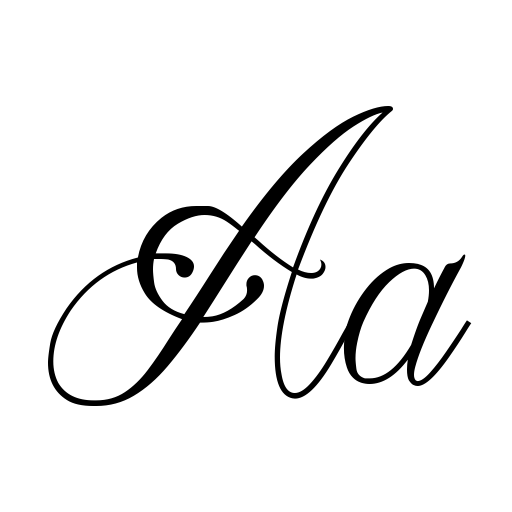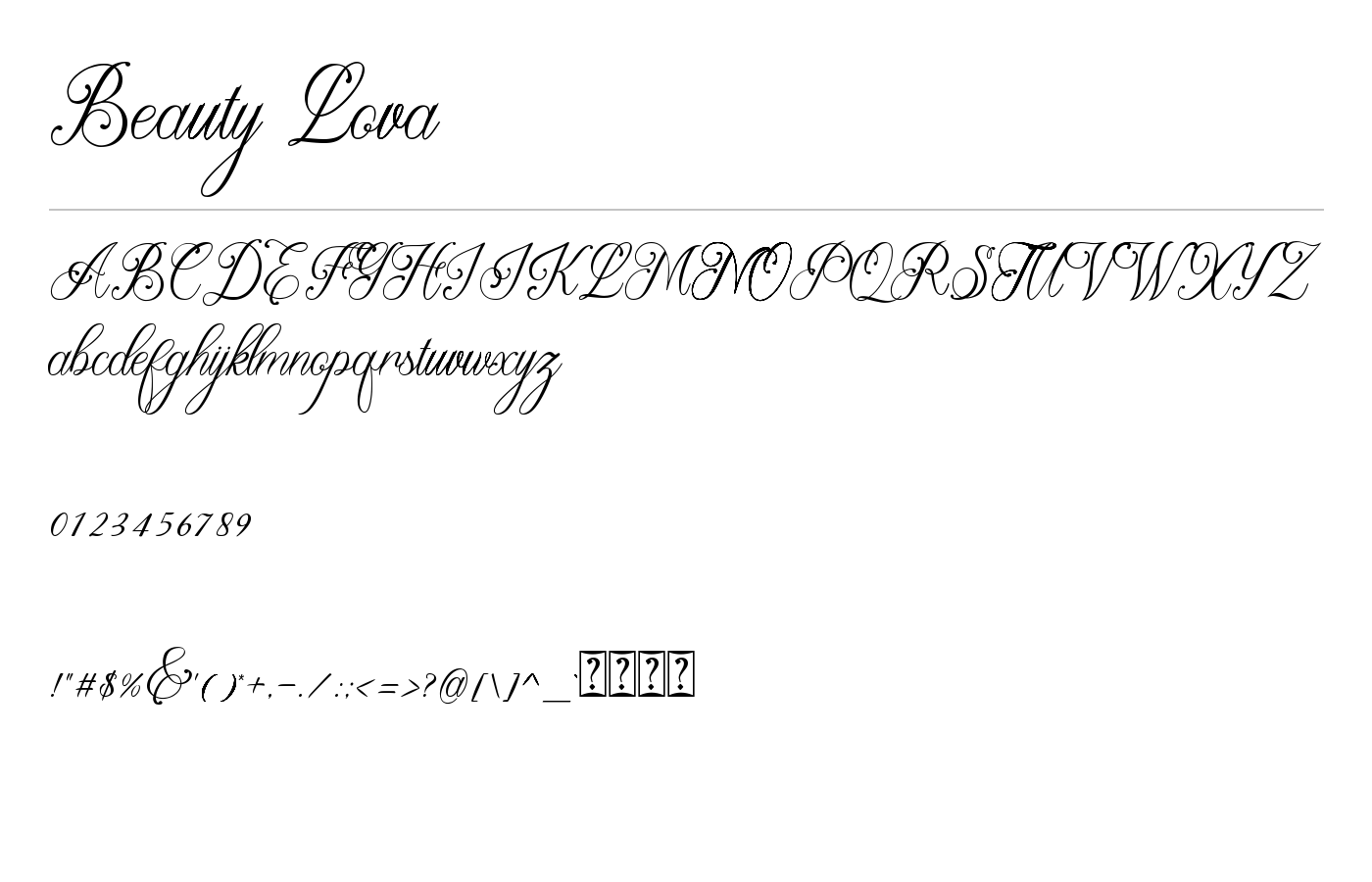
Beauty Lova is an elegant script font featuring delicate, flowing letterforms with high contrast between thin and thick strokes, creating a graceful and refined appearance. Its decorative swashes and slender, calligraphic lines make it perfect for sophisticated branding, wedding invitations, and luxury packaging, where a touch of romance and class is desired. This font works best in headlines or display uses, adding a stylish, feminine charm to any design.
Beauty Lova Font
About Beauty Lova Font